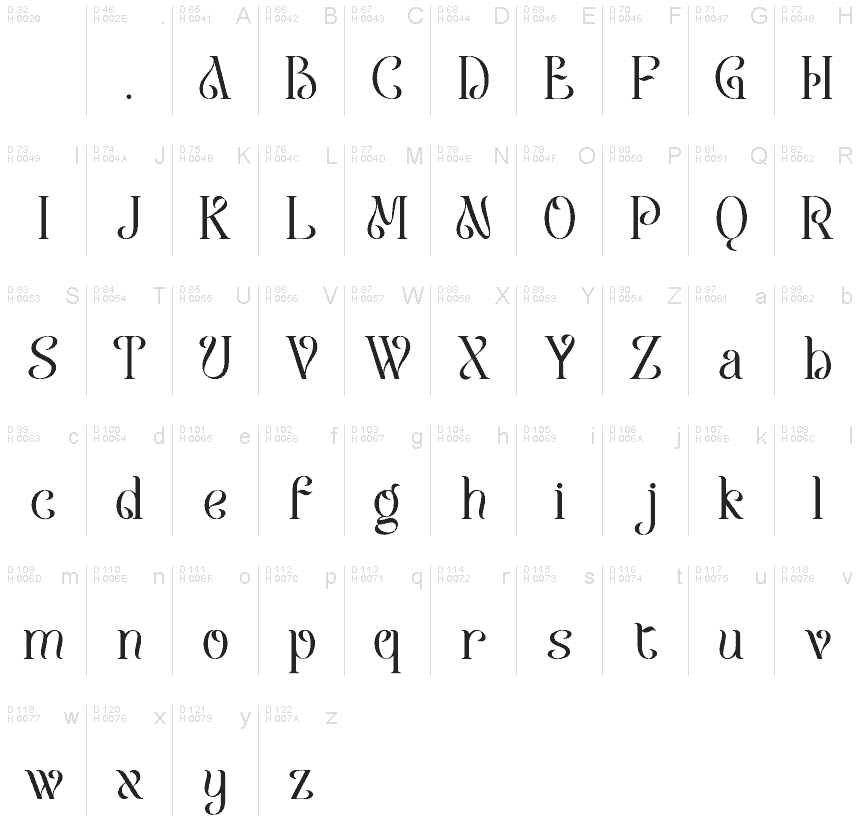
Maure Regular
Maure font by Achmad Yani is a retro display free font with an expressive and elegant appearance. Maura embodies a decorative flair that takes ornamental artistic shapes in some of its letters as well as along the overall look of the typeface. With vintage vibes, Maure is still modern, sophisticated, and ready for use in all kinds of projects.